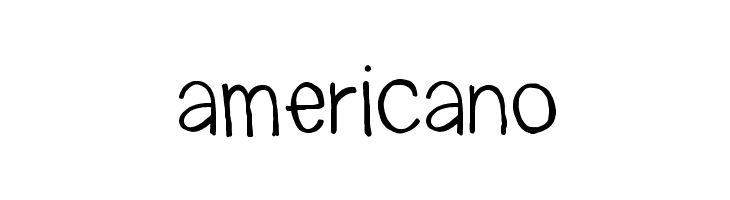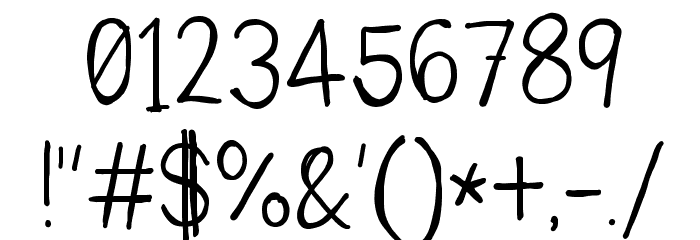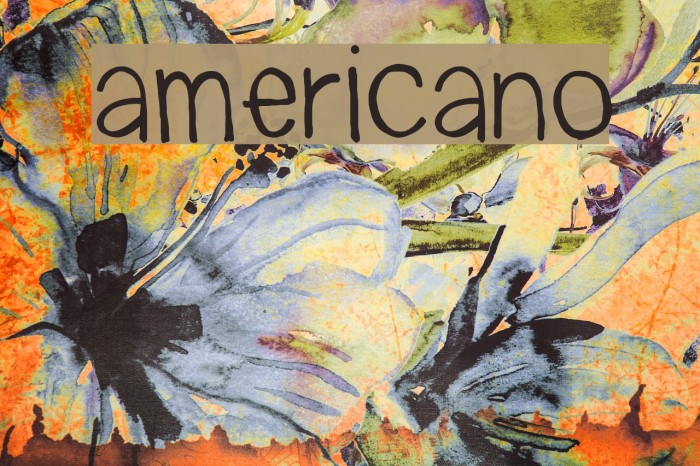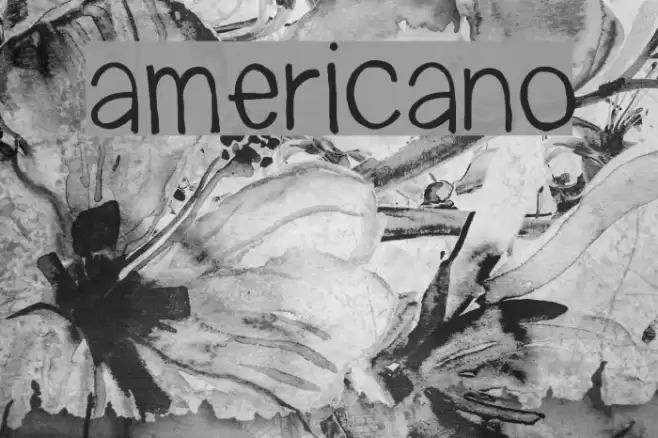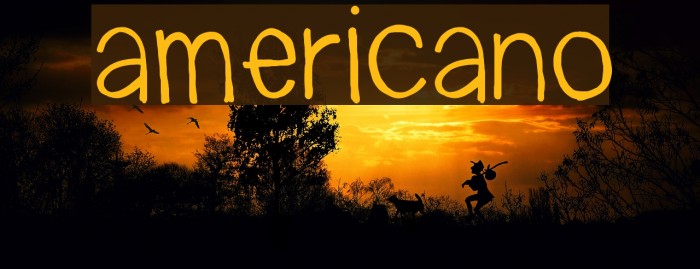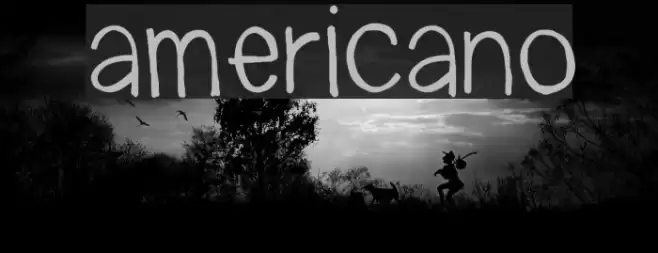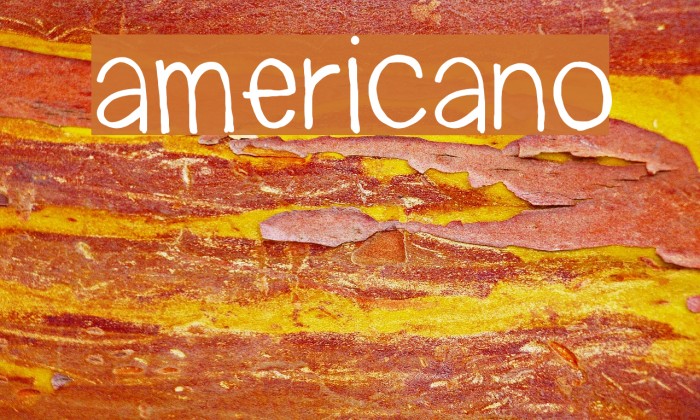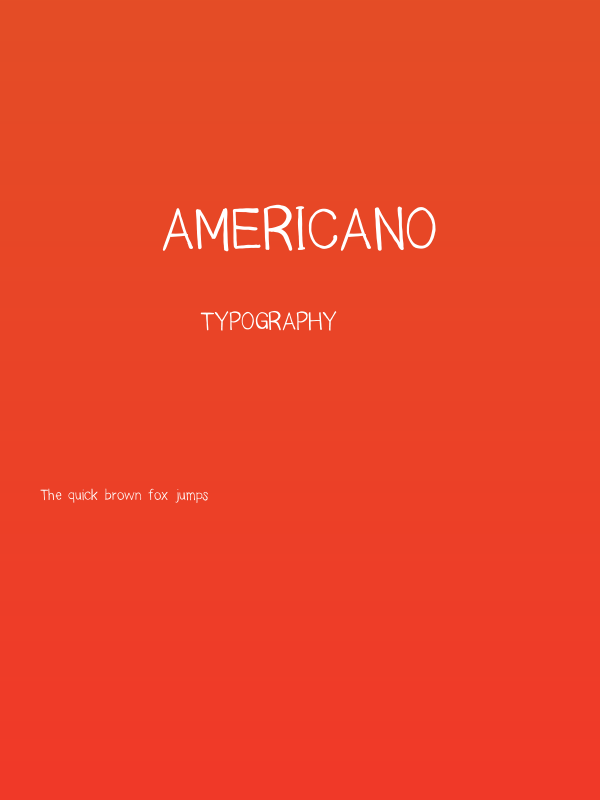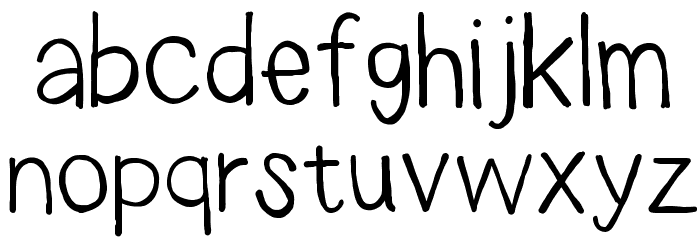
americano Font
americano Description
This font features a playful, handwritten style with a casual and informal appearance. The characters are slightly irregular, giving it a charming and approachable feel. The strokes are consistent in thickness, providing a uniform look across all characters. The uppercase letters are bold and prominent, while the lowercase letters maintain a friendly and inviting tone. Numbers and special characters are designed to match the overall style, ensuring a cohesive look. This font is ideal for projects that require a personal touch or a relaxed vibe.
Overall StyleCasual
Use CaseHeadlines, Informal text, Creative projects
Proposed ProjectsIdeal for greeting cards, children's books, casual branding, and social media graphics.